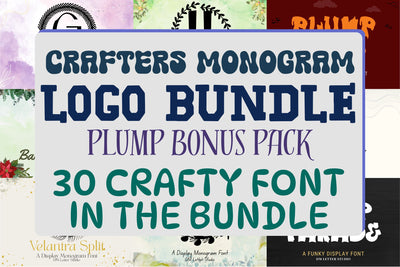
Crafters Monogram Logo Bundle + Plump Bonus Pack
Crafters Monogram Logo Bundle + Plump Bonus Pack is built for makers who want elegant initials for branding, plus bold “Plump” display fonts for attention-grabbing headlines. Inside, you get a curated set of monogram fonts in regular + split styles, so personalization is fast and consistent. Then you get four Plump bonuses for posters, stickers, merch, and seasonal promos. Because the bundle covers both premium monogram work and playful display type, you can create more product styles from one download. Use it for boutique logos, wedding items, wax seals, packaging, labels, sticker packs, craft projects, POD merch, and social templates. As a result, your listings look more complete, more professional, and easier to scale.
Fonts included in this bundle
Monogram + Split pairs
- Rosaver Monogram Font + Rosaver Split Monogram Font
- Velantra Monogram Font + Velantra Split Monogram Font
- Barlena Monogram + Barlena Split Monogram
- Blynford Monogram + Blynford Split Monogram
- Brixton Monogram + Brixton Split Monogram
- Crestoriax Monogram + Crestoriax Split Monogram
- Darlowe Monogram + Darlowe Split Monogram
- Doraluxe Monogram + Doraluxe Split Monogram
- Elmsworth Monogram + Elmsworth Split Monogram
- Fleuriton Monogram + Fleuriton Split Monogram
- Gildemere Monogram + Gildemere Split Monogram
- Harborcrest Monogram + Harborcrest Split Monogram
- Ivorygate Monogram + Ivorygate Split Monogram
Plump Bonus Pack
- Plump Drip
- Plump Parade
- Plump Stacked
- Plump Stacked Monogram
Fast layouts that look professional
Start with a monogram as your main badge. After that, use the split style to add a name or brand phrase across the center bar. Because monograms look best with breathing room, keep spacing airy and pair them with a neat sans or soft serif for details. In addition, switch to Plump Parade for friendly headlines, Plump Drip for edgy, high-energy titles, and Plump Stacked for instant depth. Finally, save a few repeatable palettes like sage & ivory, charcoal & cream, navy & gold, or cherry & white to keep your product line cohesive.
Creative uses and quick wins
- Boutique logos, maker marks, and product seals
- Labels, jar stickers, candle branding, and soap packaging
- Wax seals, ribbon tags, and keepsake boxes
- Sticker packs, craft fair signage, and price boards
- Merch slogans, reels covers, and promo banners
- Monograms in regular + split styles for easy personalization
- Curves tuned for foil, emboss, deboss, engraving, laser, vinyl, DTF, and sublimation
Design tips for best results
Keep your personalization line short so the initial stays dominant. Also, increase tracking slightly for small labels to improve readability. For a premium look, add a thin inner stroke or soft shadow behind the monogram on light backgrounds. When using Plump styles, keep headlines short and give them extra margins so the bold shapes feel clean. Finally, export at 300 DPI for print and 2× size for web for crisp edges everywhere.